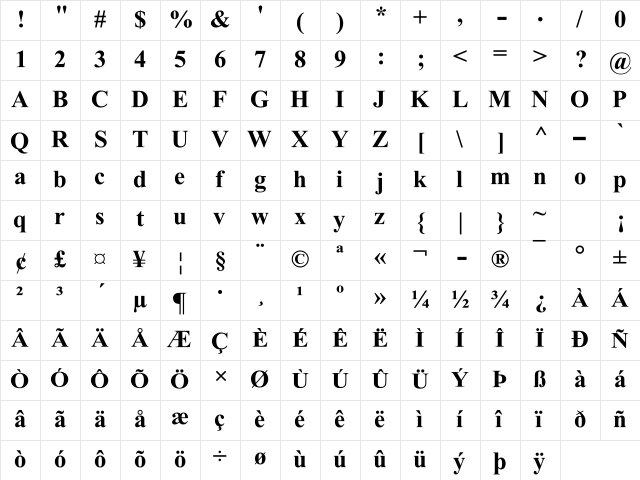
UKIJ Tuz Qara Bold
| Foundry | Uyghur Computer Science Association |
| Designer | Tursunjan Sultan (alp) |
Design Context for UKIJ Tuz Qara Typeface
UKIJ Tuz Qara takes a measured approach to typography — its balanced proportions and neutral character make it a reliable workhorse for both digital and print work. The heavy weight commands attention and anchors typographic hierarchies.